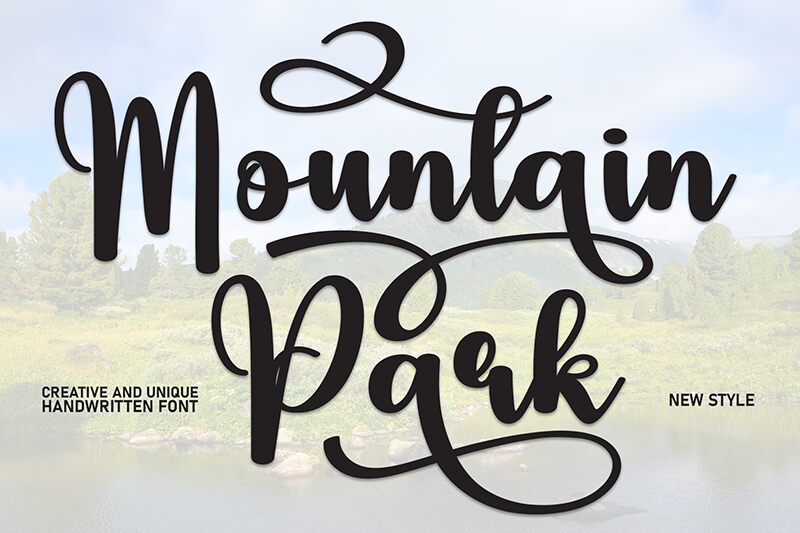
Mountain Park
Mountain Park font is a beautiful brush script style typeface brought to you by Scratchones. The letters of this elegant flowing font have decorative flair and modern sophistication that shines through instantaneously. Mountain Park will grab attention instantly in whatever project it’s placed on.